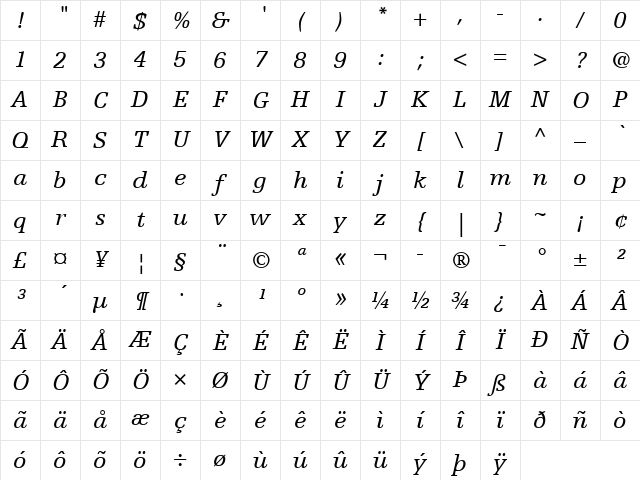
Complete EgyptienneF LT Roman Italic glyph index. Displaying only characters natively supported by EgyptienneF LT Roman Italic font.
EgyptienneF LT Roman is a composed and adaptable typeface that performs quietly and consistently across a wide range of design contexts. The slanted form adds forward momentum and visual energy. Its slender proportions lend an understated elegance to any composition.